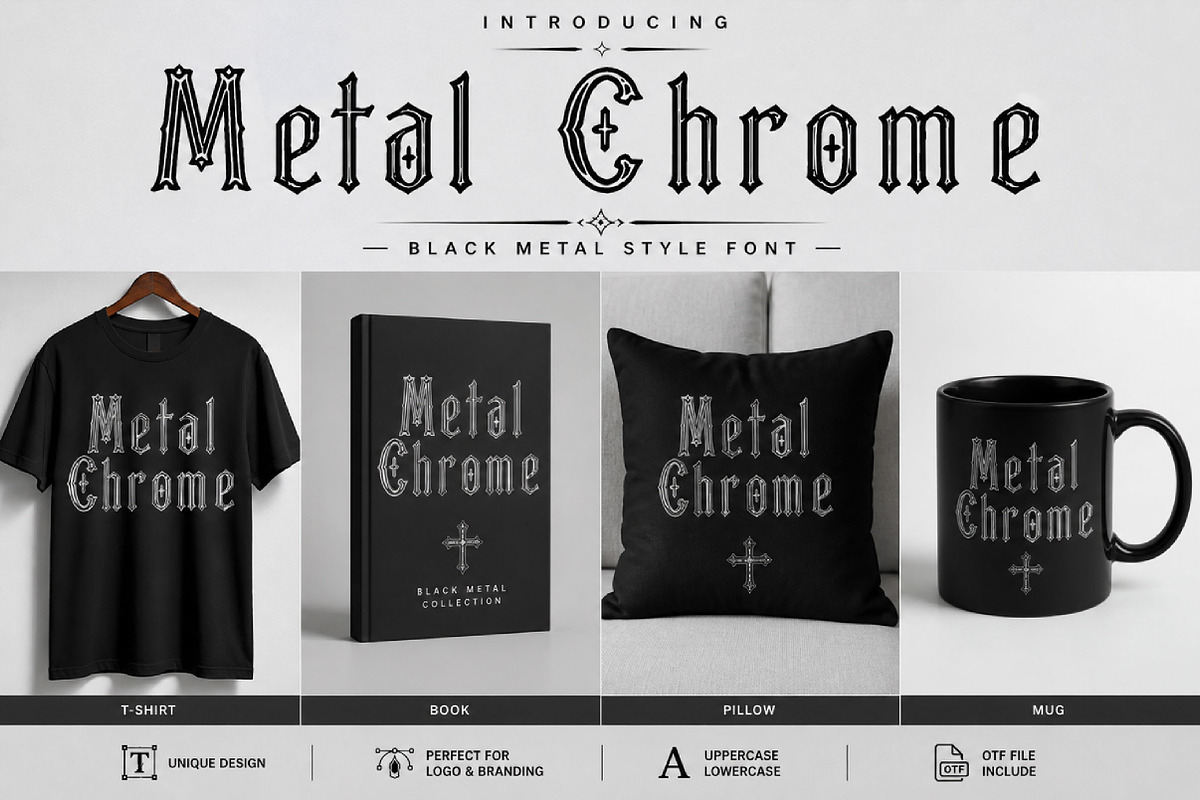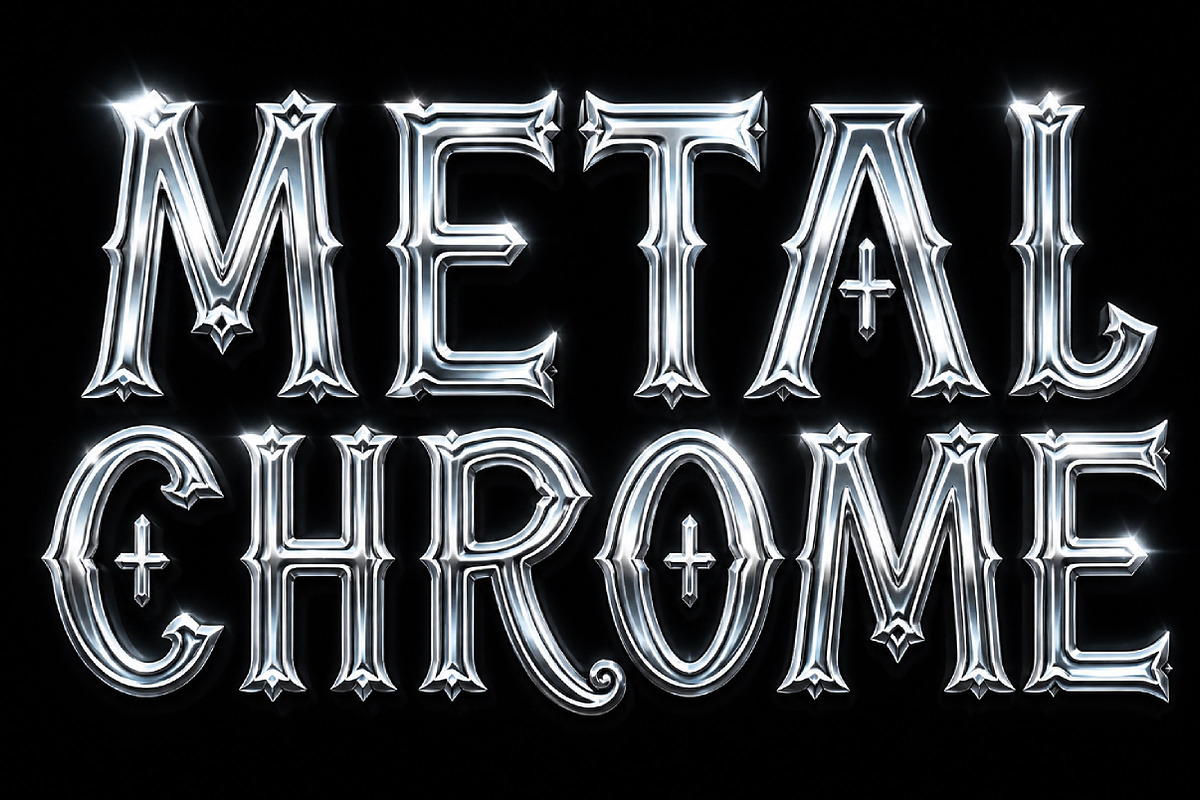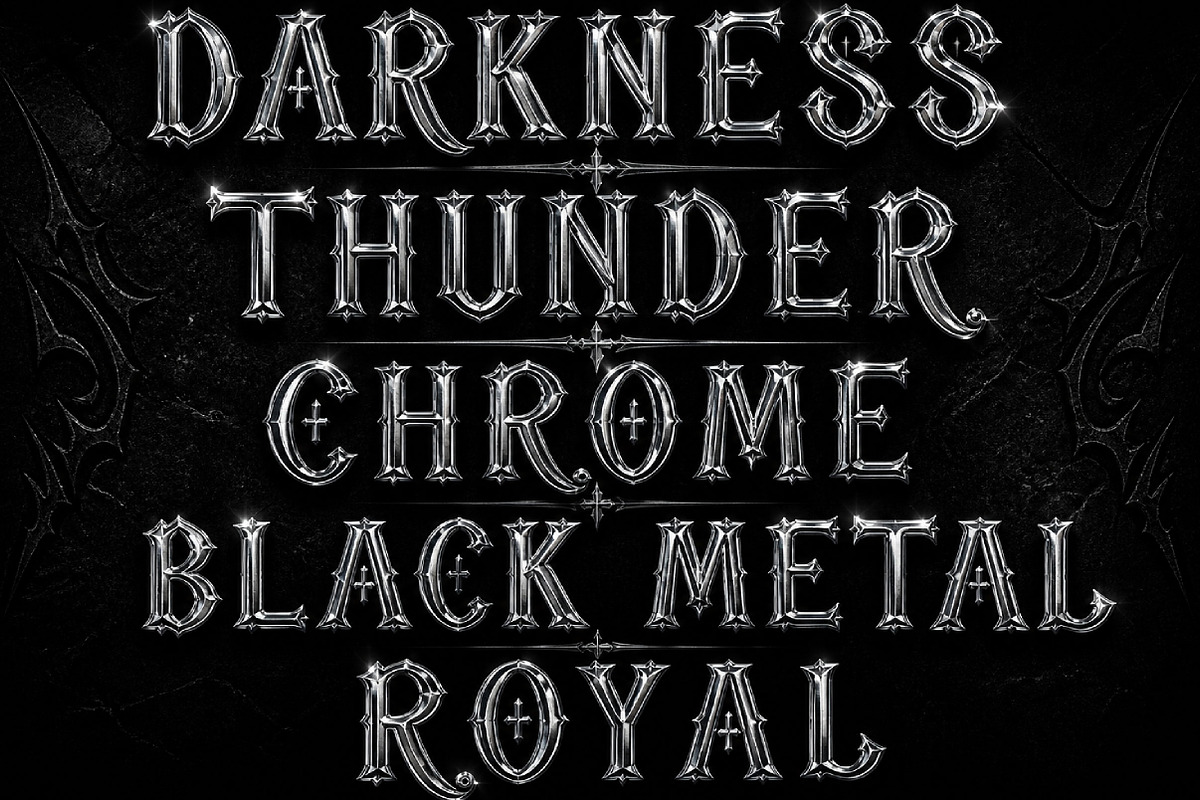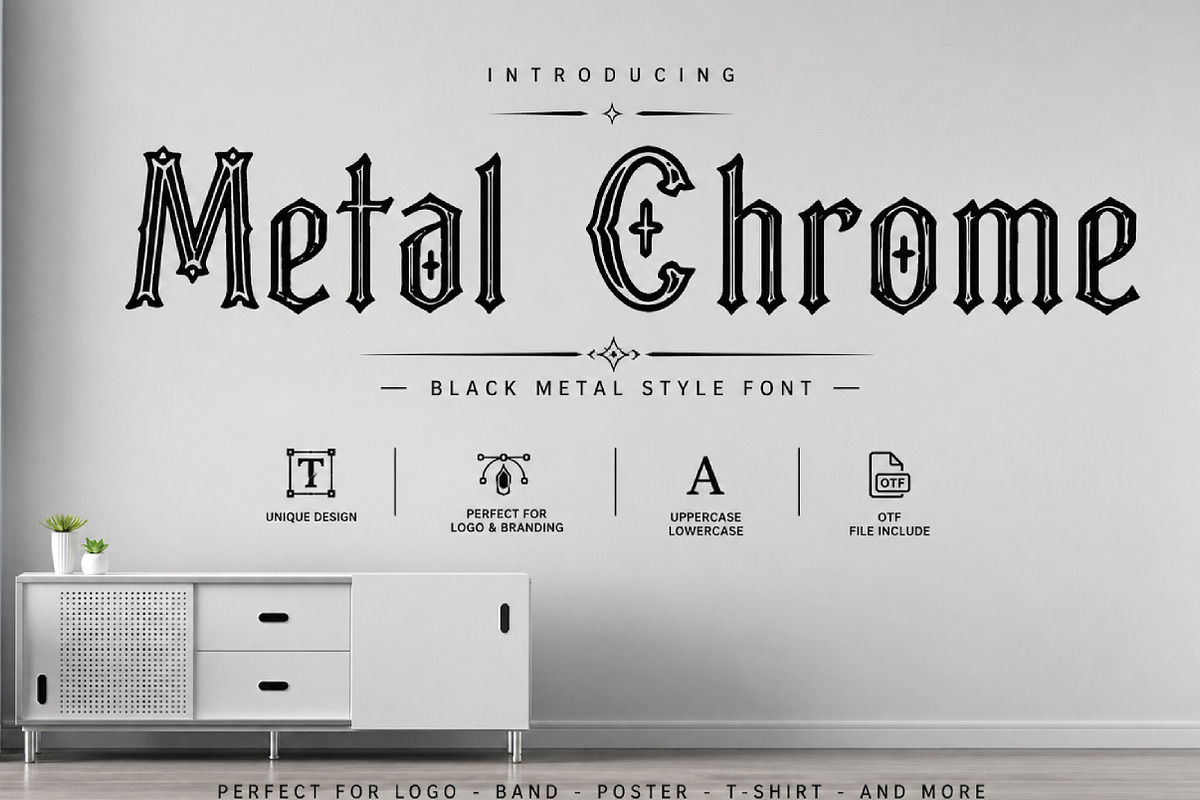
Metal Chrome – Gothic Metal Display
Metal Chrome – Gothic Metal Display Font
Short Description
Metal Chrome is a bold gothic metal display font with sharp outlines, dark details, and a vintage rock-inspired style. Perfect for band logos, posters, album covers, merchandise, tattoos, and edgy branding.
Full Description
Metal Chrome is a powerful gothic display font designed for bold, dark, and heavy visual projects. Featuring sharp letterforms, decorative outlines, and metal-inspired details, this font delivers a strong rock and gothic attitude.
Its dramatic style makes it perfect for music artwork, band logos, album covers, event posters, festival graphics, tattoo designs, apparel, merchandise, and alternative branding. The outlined gothic structure gives Metal Chrome a vintage metal feel while keeping it clear and eye-catching for modern design use.
Whether you are creating a heavy metal poster, dark logo, music cover, or statement merchandise design, Metal Chrome brings intensity, character, and unforgettable visual impact.
Band logos
Album covers
Music posters
Heavy metal designs
Gothic branding
Tattoo-style artwork
Event and festival graphics
Apparel and merchandise
Alternative fashion
Dark display typography
Uppercase letters
Lowercase letters
Numbers and punctuation
Gothic metal style
Decorative outline details
Sharp vintage letterforms
Perfect for display use